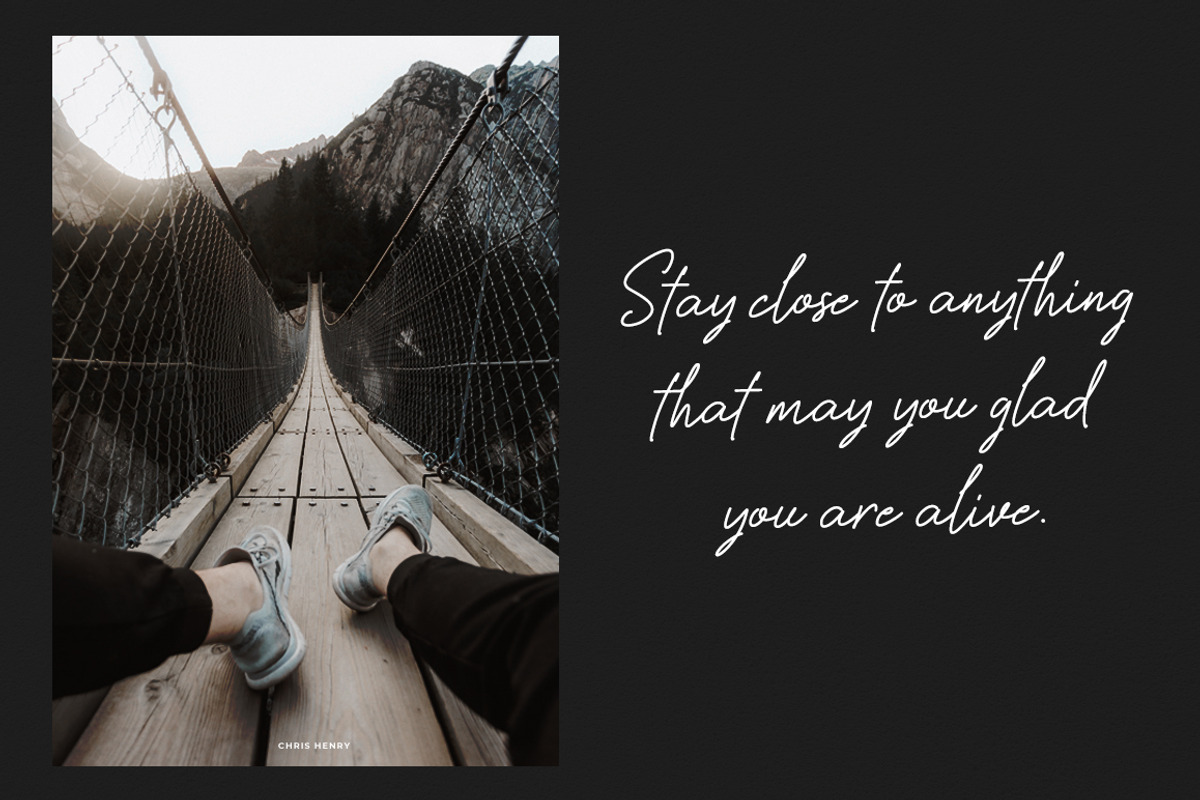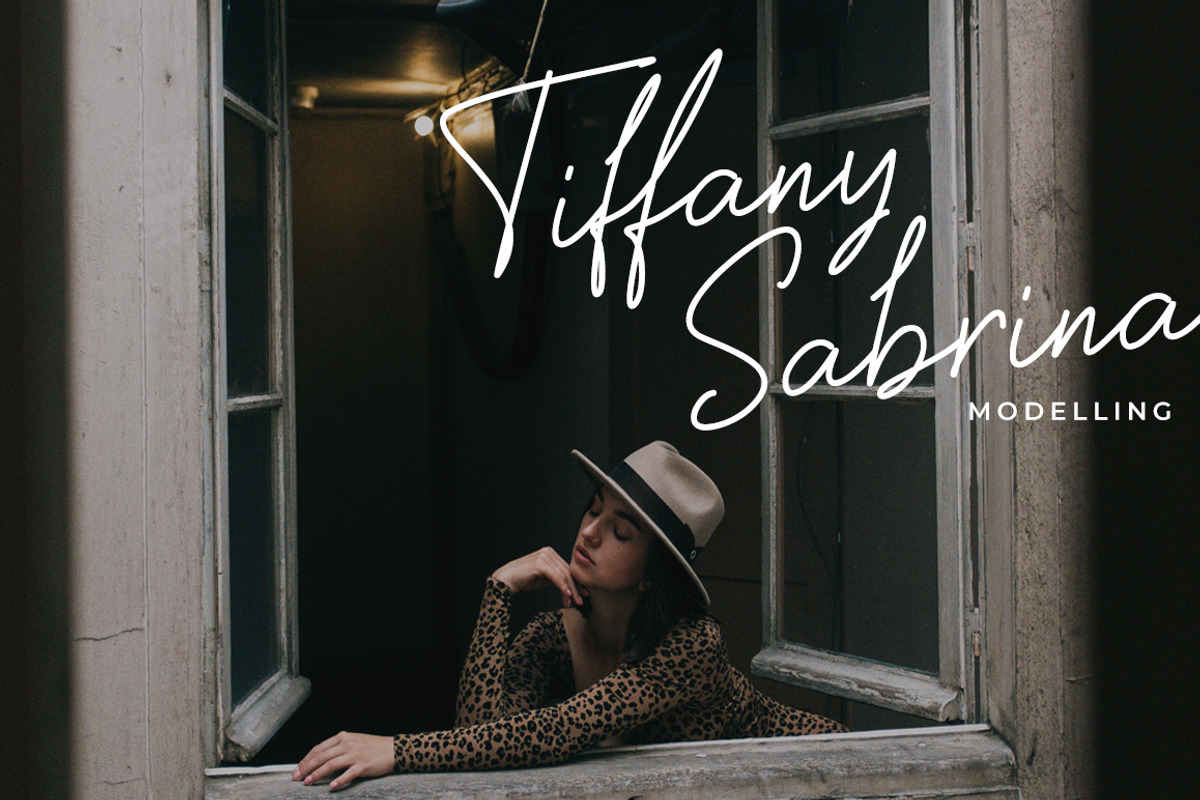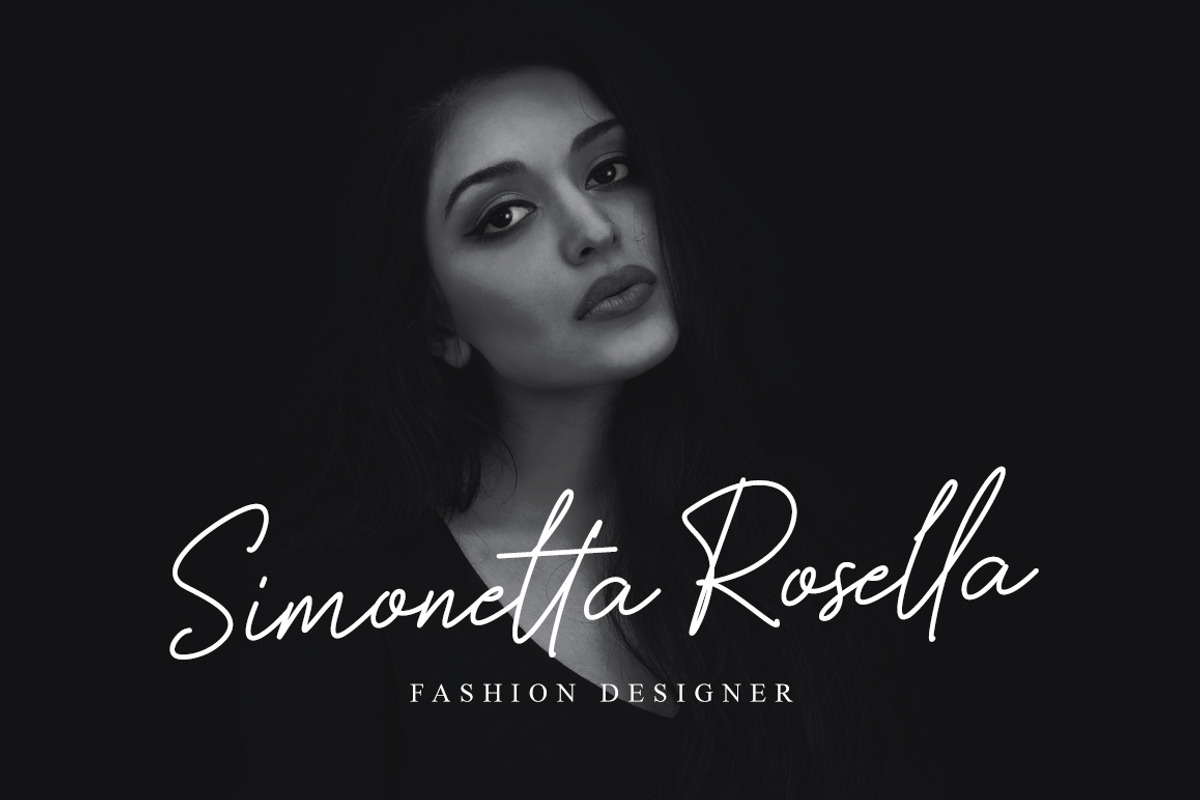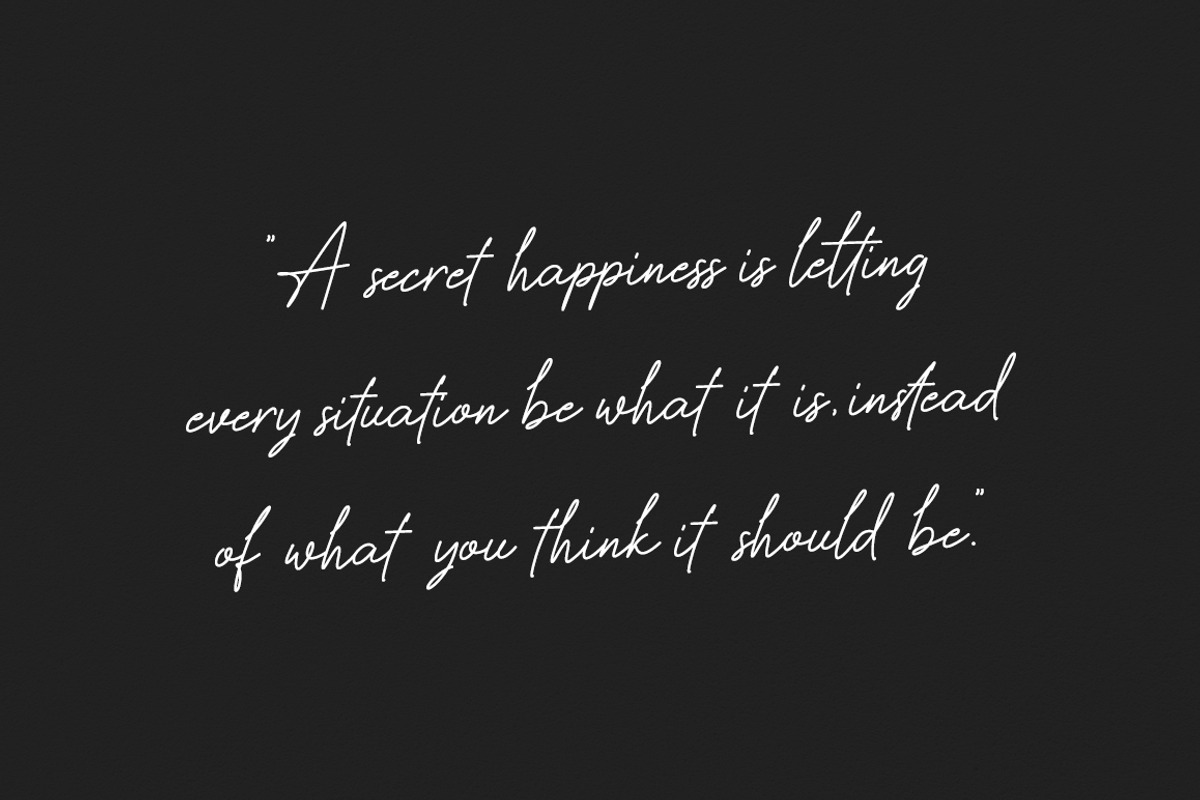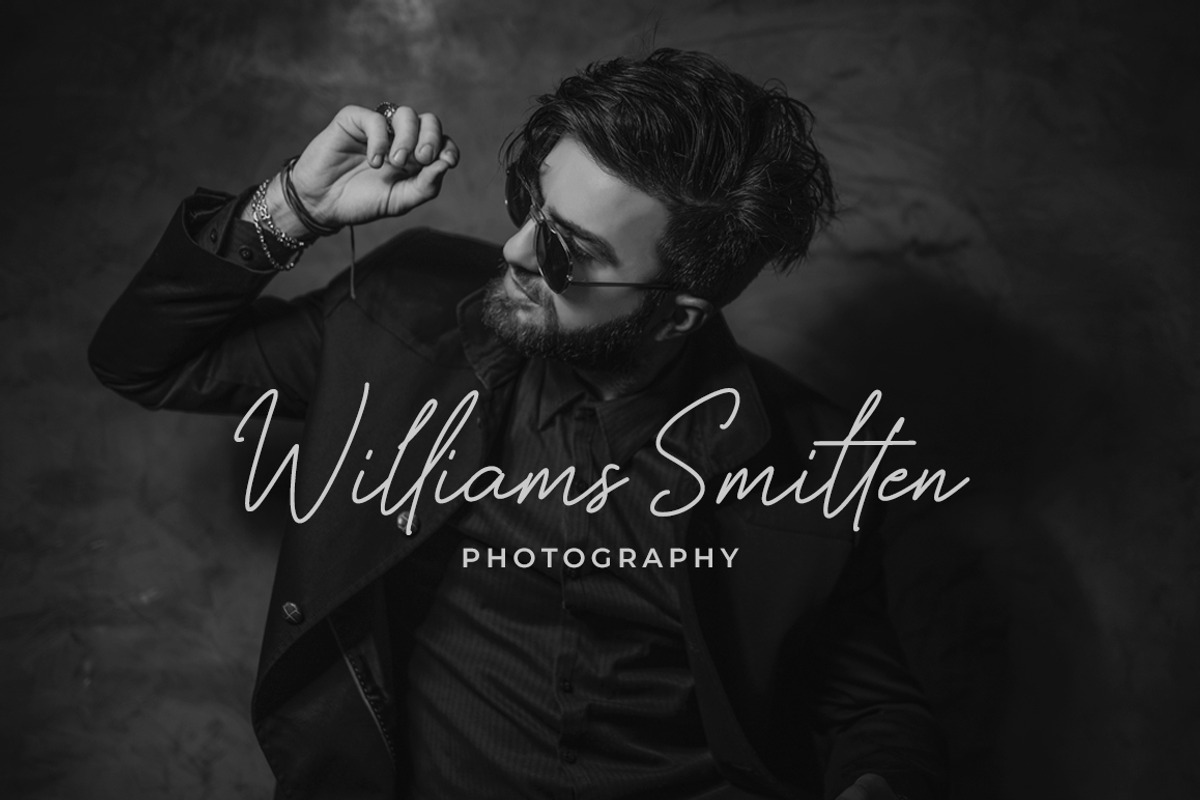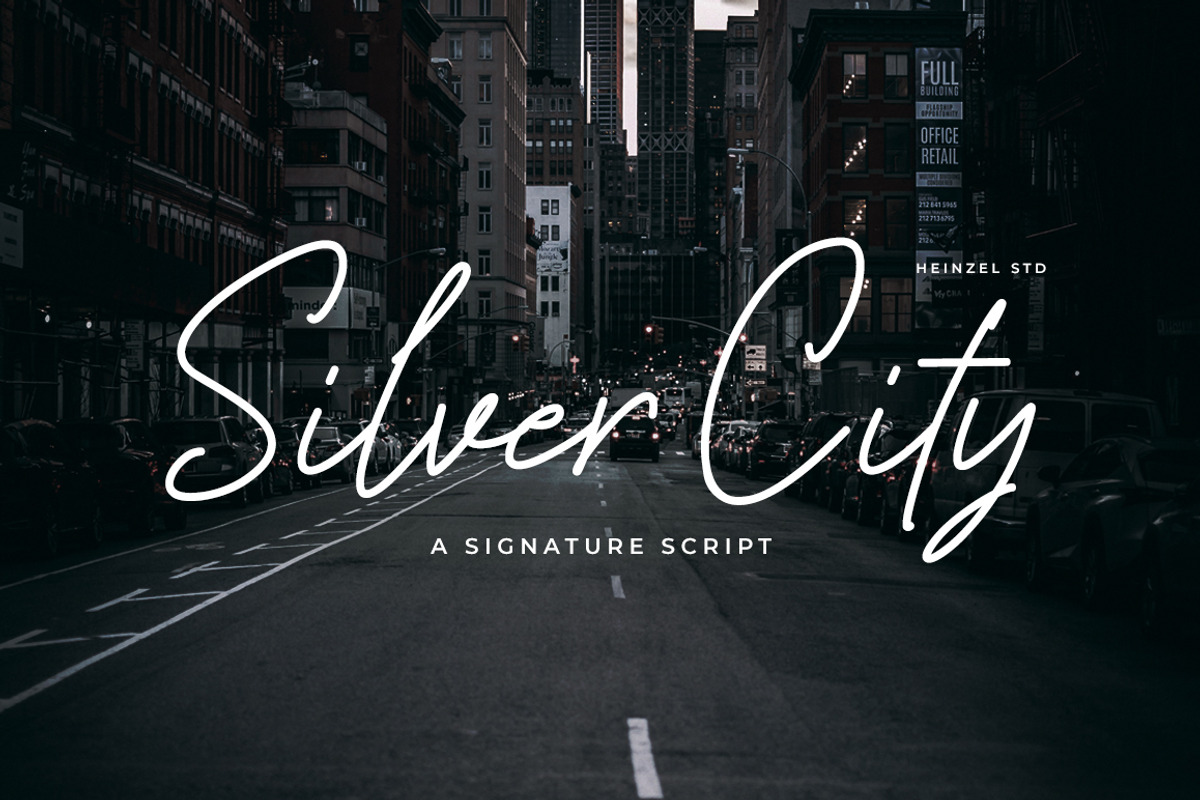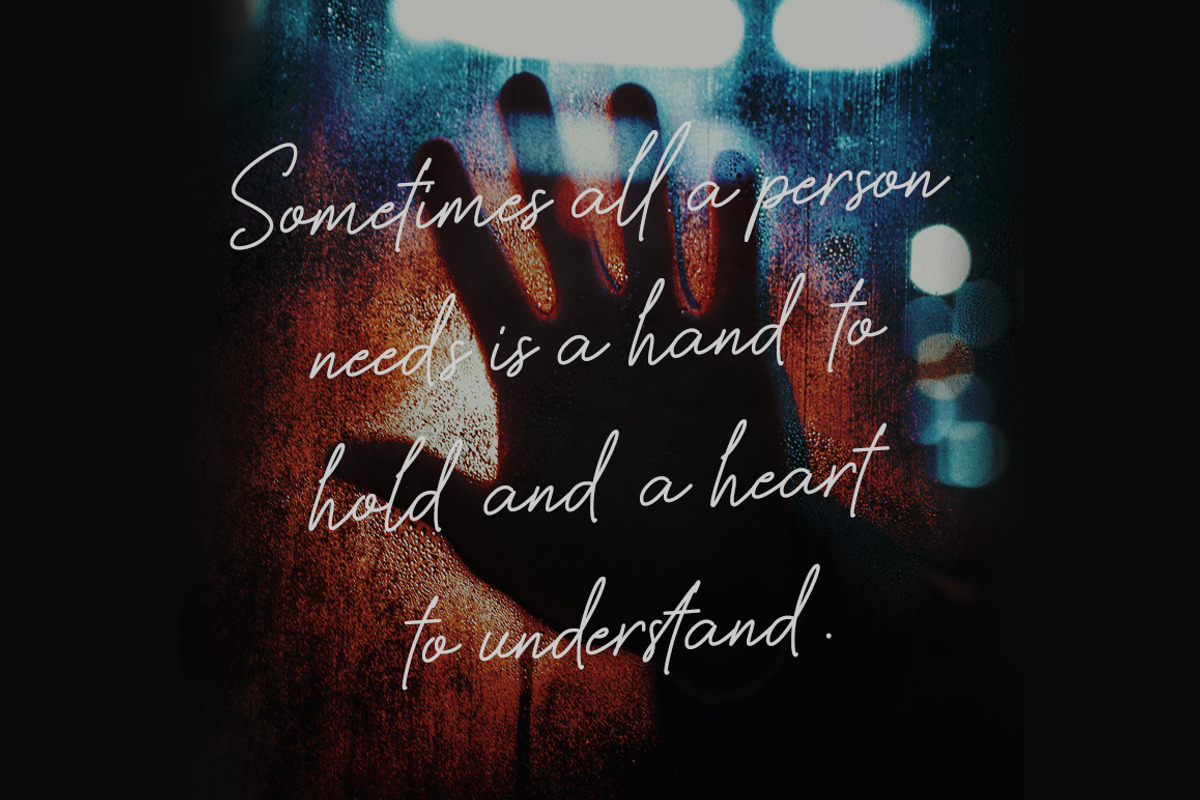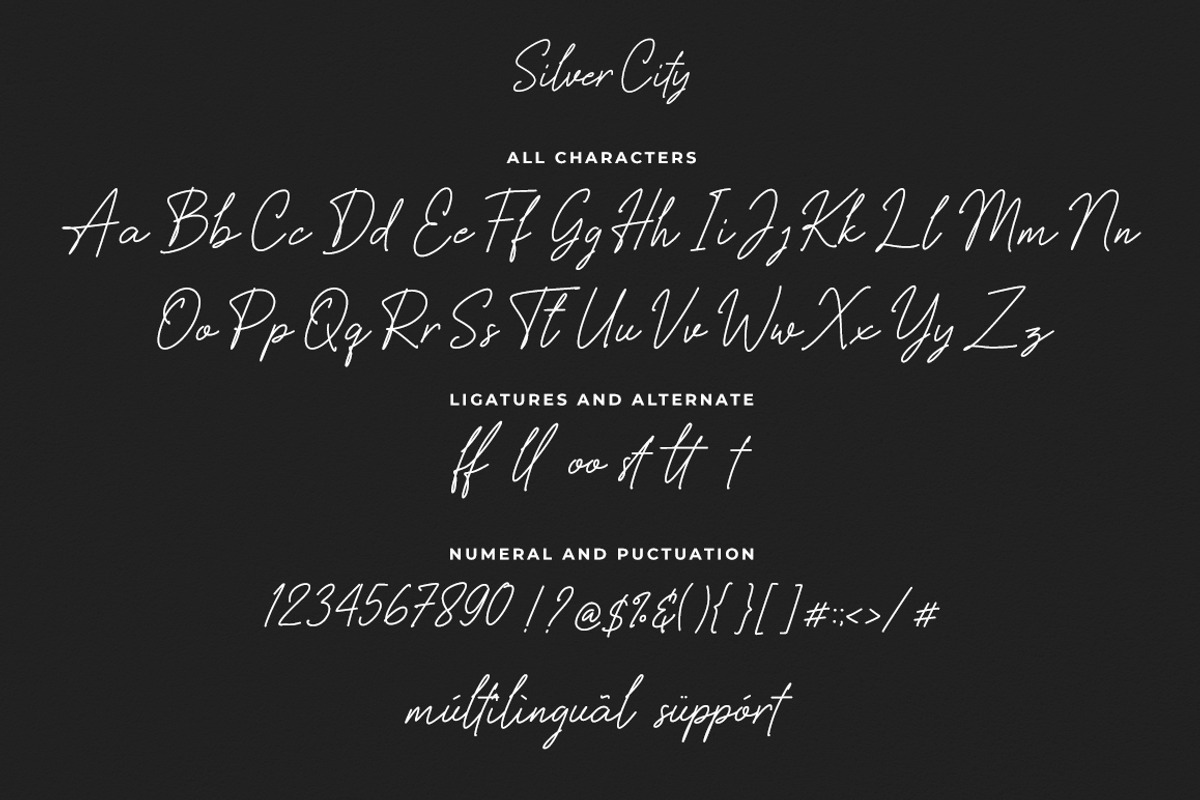
Silver City Signature Font
Silver City is a signature font. Fall in love with its authentic feel and use it to create gorgeous wedding invitations, beautiful stationary art, eye-catching social media posts, and cute greeting cards.
- Ligatures and Alternate
Why Silver City Signature Font is worth a look
Silver City Signature Font by Heinzel Std fits naturally into Branding, posters, packaging, typography.